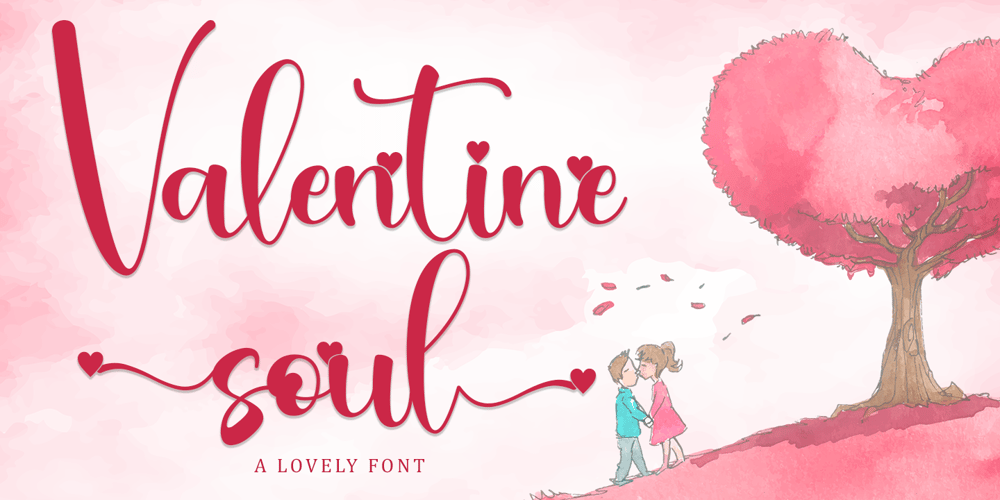
Valentine Soul Font Family was designed by Alif Ryan Zulfikar and published by Sakha Design. Valentine Soul contains 1 styles and family package options. Valentine Soul is a romantic and delicate handwritten font. Dainty and joyful, this font will be ideal for writing wedding invitations, cards or any other design that may need a dreamy, personalized touch! This font is PUA encoded which means you can access all of the glyphs and swashes with ease!